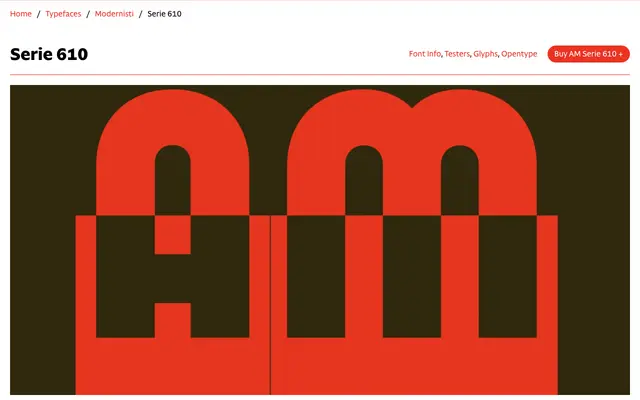
AM Serie 610
CAST · Riccardo Olocco · 2024
A digital revival of a 1930s Italian wood type by Xilografia Milanese, in which every glyph is split by a horizontal band into a black upper half and a white lower half.
Riccardo Olocco's revival follows the original Serie 610 closely, preserving the wood-type letterforms built on straight lines and circles, along with distinctive details such as the round apex of A, the horseshoe N and the vertical tail of Q. The bisected band treatment that defined the original is reproduced faithfully, with an optional stylistic set reinstating the thin white vertical lines between characters that appeared in physical typesetting. Special sorts, including angled, rounded, arrowed and forked band pieces for titling, are accessible via OpenType features, recreating the original supplementary material sold by the foundry.
An all-caps display typeface reviving a 1930s Italian wood type, with letterforms built on straight lines and circles consistent with Art Deco geometric principles. The bisected black-and-white band treatment places it firmly in the decorative display category.